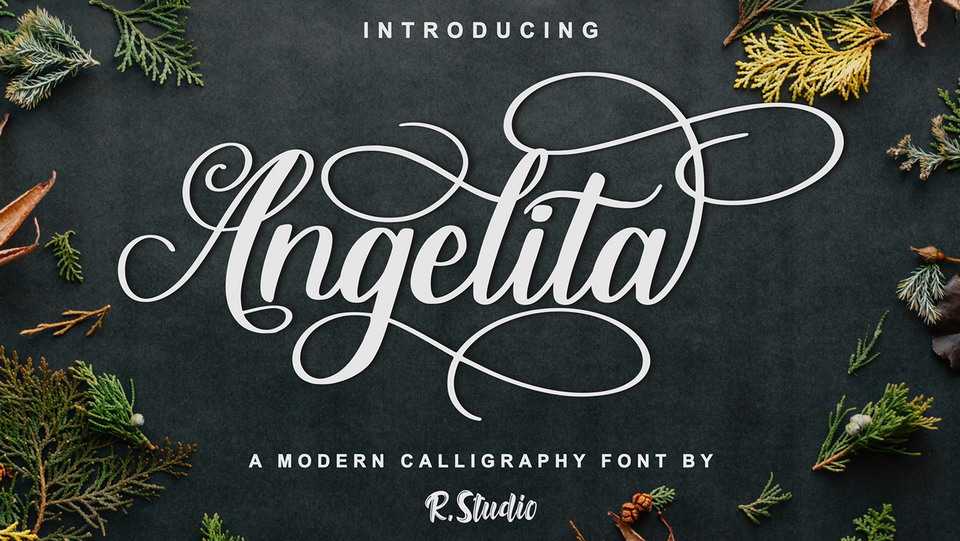
Download Angelita font, a wonderful modern calligraphy script. Its classic look and dancing baseline makes is perfect for adding an elegant touch to your designs.
Designer: R Studio